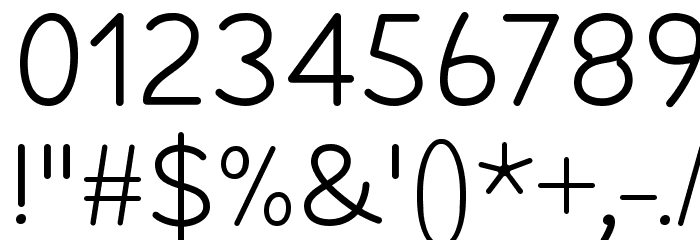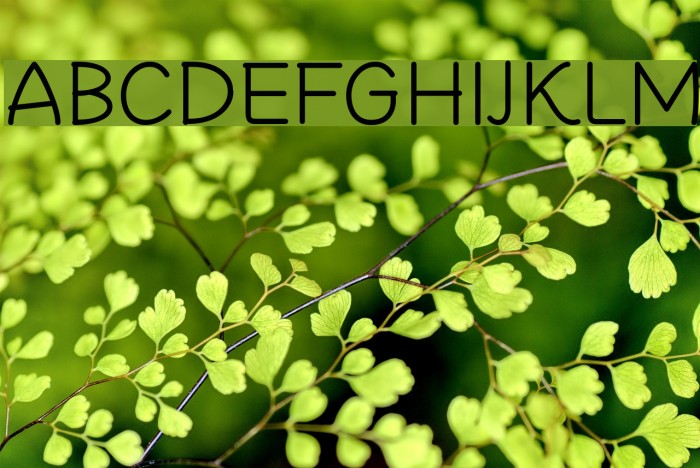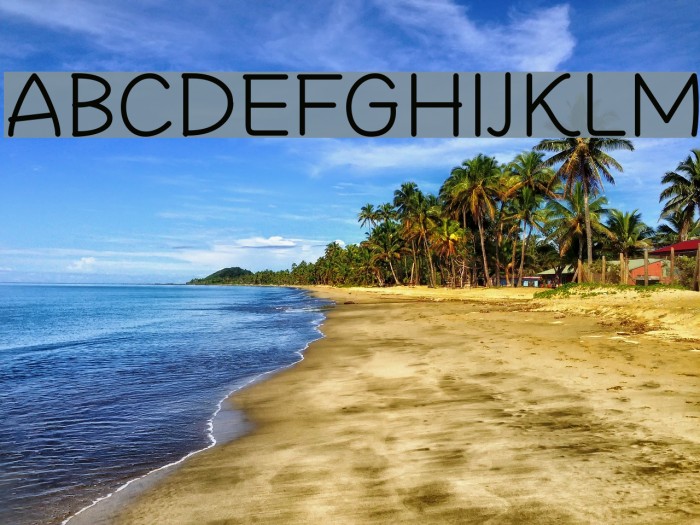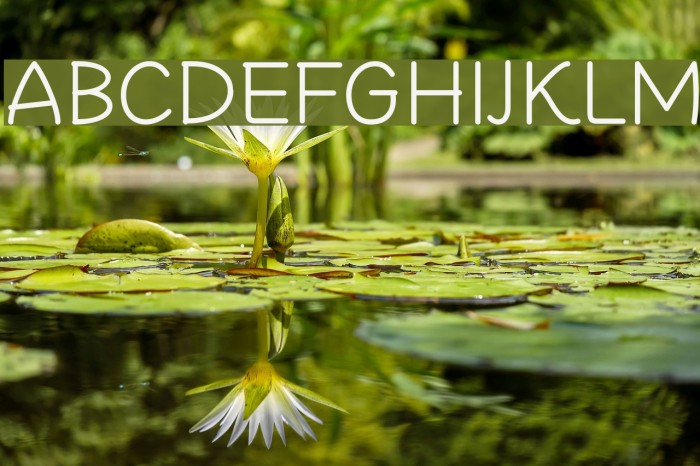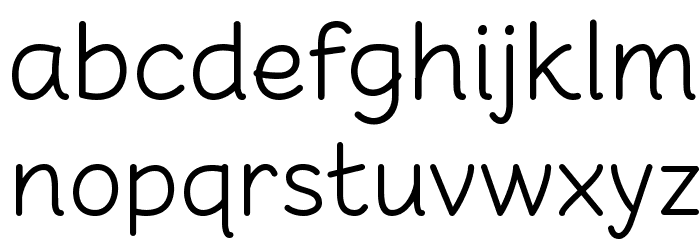
Cheeronsta Light Font
Cheeronsta Light Description
This font features a clean and modern design with rounded edges, giving it a friendly and approachable appearance. The characters are evenly spaced, providing excellent readability. The uppercase letters are slightly taller than the lowercase, maintaining a consistent line weight throughout. The numerals are clear and distinct, matching the style of the alphabet. Special characters are well-integrated, maintaining the font's overall aesthetic. This font is versatile, suitable for both digital and print media, offering a contemporary yet timeless look.
A clean, modern font with rounded edges and excellent readability from Uncategorized fonts.
- Proposed Projects: Ideal for branding, web design, children's books, and educational materials due to its friendly and approachable style.